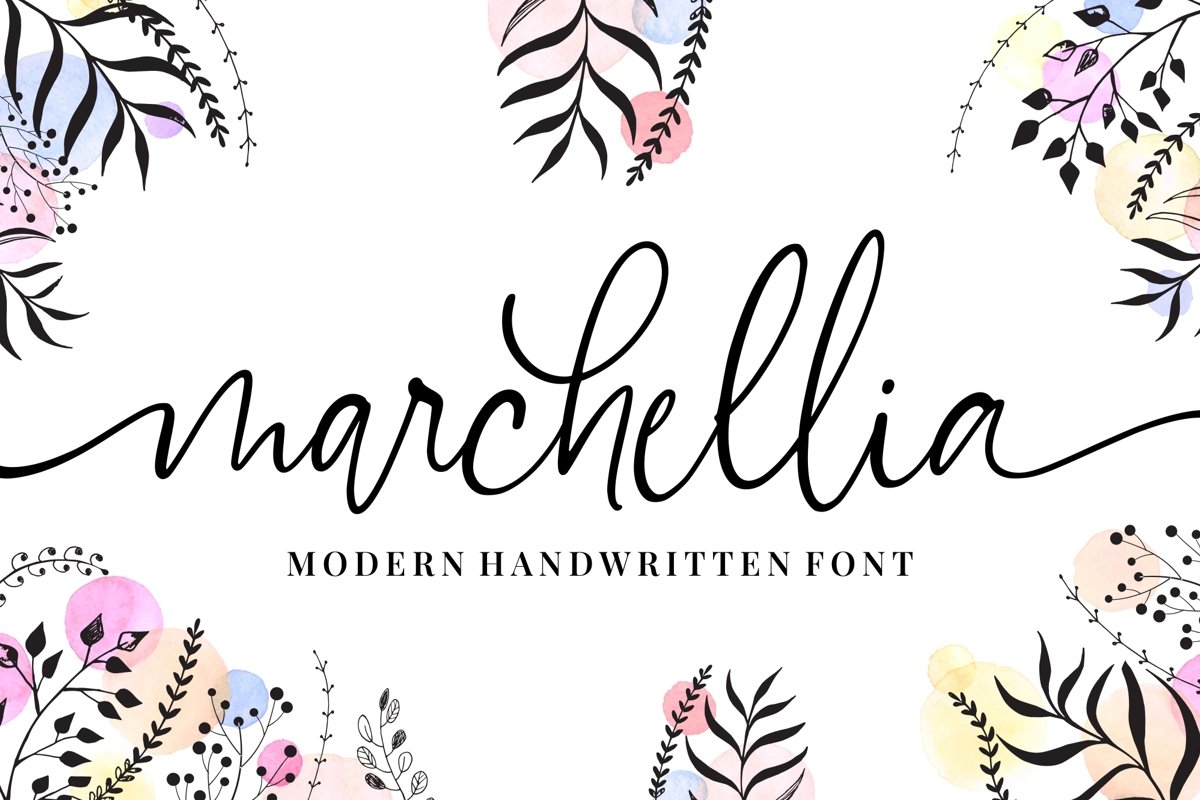
Marchellia - Modern Handwritten Font
Marchellia - Modern Handwritten Font is a modern signature font. Perfect for logo, invitation, stationery, wedding designs, social media posts, advertisements, product packaging, product designs, label, photography, watermark, special events or anything. This font include : Marchellia OTF-TTF-WOFF,  Ligatures, Stylistic Set 01 - 04 and also Multilingual support.
- Opentype Features: Stylistic Set 01 - 04
- Very great for branding, logotype, handletteing, invitations, or fashion branding.